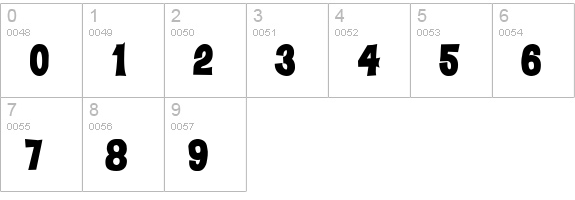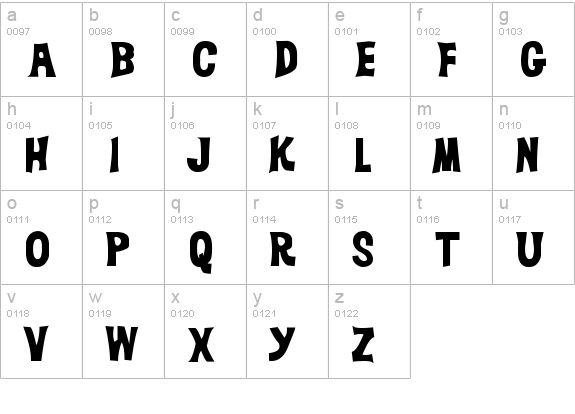
DickVanDykeBold Font Details
DickVanDykeBold font is a stylish and eye-catching typeface designed for bold and impactful designs. With its strong and distinct letterforms, this font is perfect for making a statement in your projects. The bold weight of the font adds a sense of confidence and modernity to any design it is used in. Whether you're creating posters, headlines, or branding materials, DickVanDykeBold font will surely stand out. And the best part? DickVanDykeBold font is available for free download at FontsMarket.com. Don't miss out on this fantastic opportunity to add a touch of boldness to your designs without breaking the bank. Download DickVanDykeBold font now and start creating stunning visuals that demand attention.